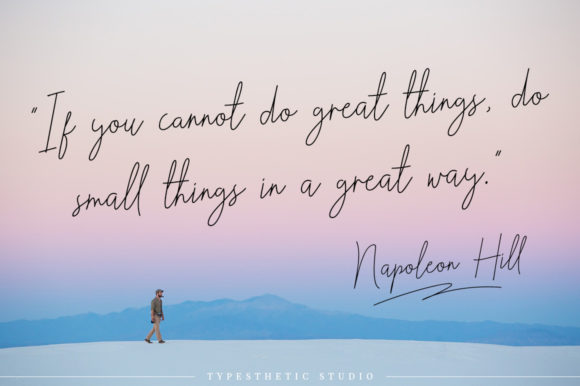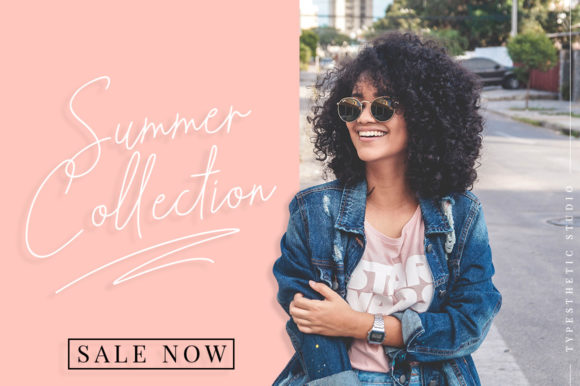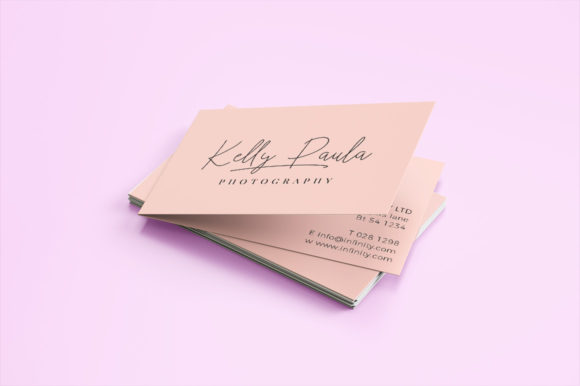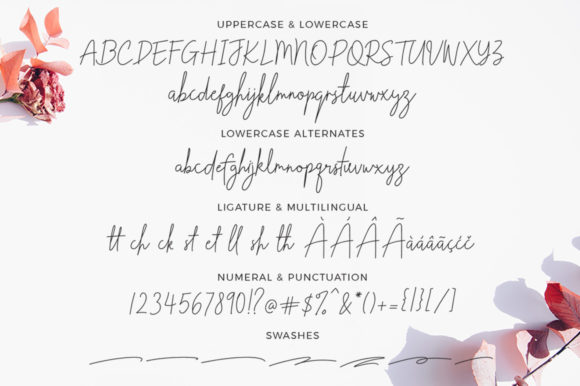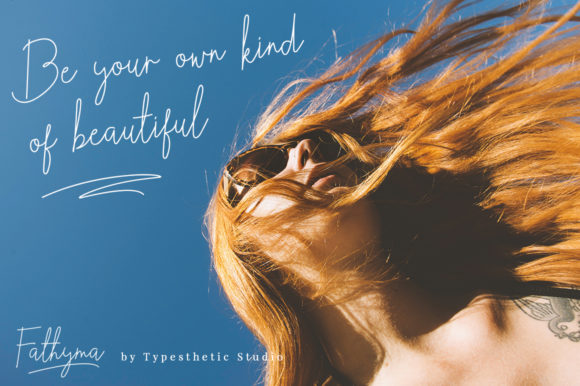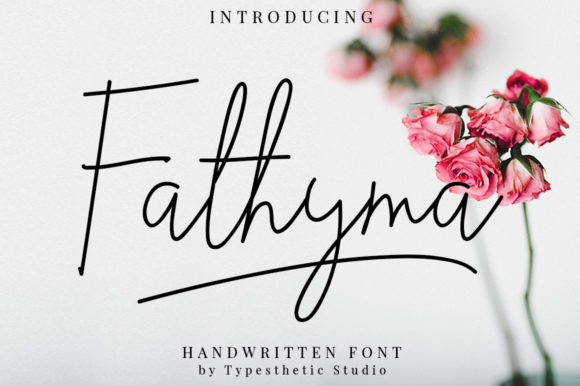
Fathyma Font: Elevate Your Designs with Elegance and Sophistication
In the world of typography, a font can make or break a design. For those seeking a touch of elegance and sophistication, the Fathyma Font is an exceptional choice. This stylish and incredibly elegant script font is perfect for adding a handwritten touch to various designs, from wedding invitations to business cards.
What Makes Fathyma Font Stand Out?
Fathyma Font boasts a range of features that set it apart from other script fonts. Its varying baseline, smooth lines, gorgeous glyphs, and stunning alternates come together to create a truly unique and beautiful font. Whether you’re a designer, crafter, or DIY enthusiast, Fathyma Font is sure to impress.
Wedding invitations, thank you cards, and event announcements require a special touch. Fathyma Font is specifically designed to add a level of sophistication and romance to these types of designs. Its elegant script and flowing lines evoke a sense of luxury and refinement, making it perfect for:
- Wedding invitations and save-the-date cards
- Thank you cards and event announcements
- Party invitations and celebration decor
Beyond Weddings: Versatility in Design
Fathyma Font’s versatility extends far beyond wedding and event designs. Its stylish and elegant appearance makes it suitable for a wide range of applications, including:
- Quotes and social media graphics
- Greeting cards and stationery
Fathyma Font is PUA (Private Use Area) encoded, making it incredibly easy to access all the glyphs and swashes. This feature allows designers to:
- Easily switch between glyphs and alternates
- Customize designs with a range of swashes and flourishes
- Save time and effort with intuitive font navigation
Why Choose Fathyma Font?
With so many fonts available, why choose Fathyma Font? Here are just a few reasons:
- Unique and elegant script style
- High-quality, smooth lines and glyphs
- PUA encoding for easy access to glyphs and swashes
- Versatile and suitable for a wide range of designs
Tips for Using Fathyma Font
To get the most out of Fathyma Font, consider the following tips:
- Pair with complementary fonts for added contrast
- Experiment with different swashes and glyphs for unique effects
- Use for headlines, titles, and emphasis text
- Take advantage of PUA encoding for easy customization
Fathyma Font is a truly exceptional script font that can elevate any design with its elegance and sophistication. With its versatile range of applications, PUA encoding, and beautiful glyphs, it’s an excellent choice for designers, crafters, and DIY enthusiasts. Whether you’re creating wedding invitations, business cards, or social media graphics, Fathyma Font is sure to make a lasting impression.